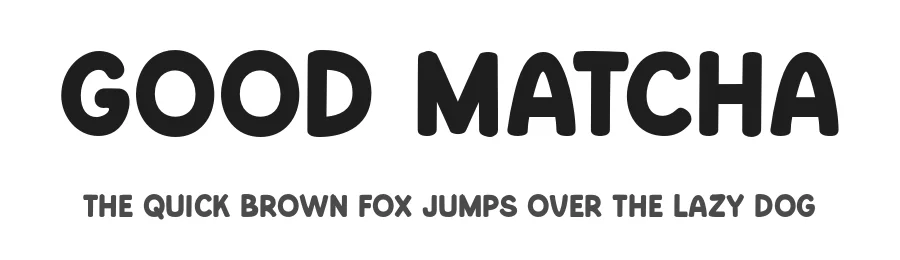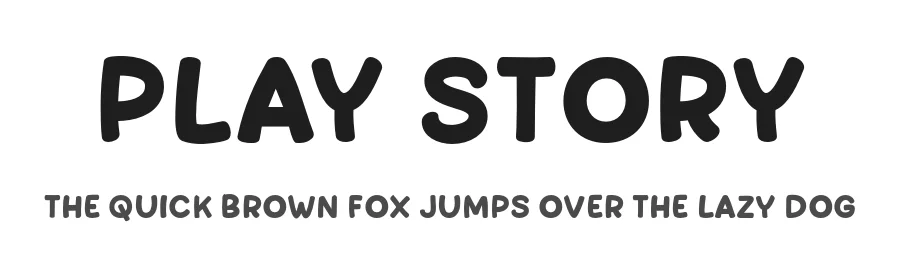
About Punizione Font
Punizione is a fresh bold vintage font available in two styles; clean & stamp. Get inspired by its contemporary coolness!
Punizione Font is a decorative font that shines as a display or heading face. Pair it with a clean sans-serif or serif font for body text β the contrast creates a clear hierarchy while the two styles stay balanced and easy to read.